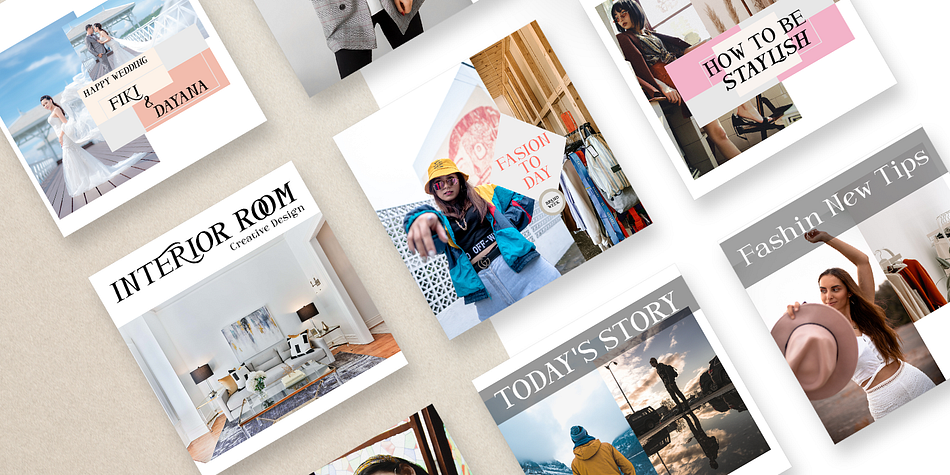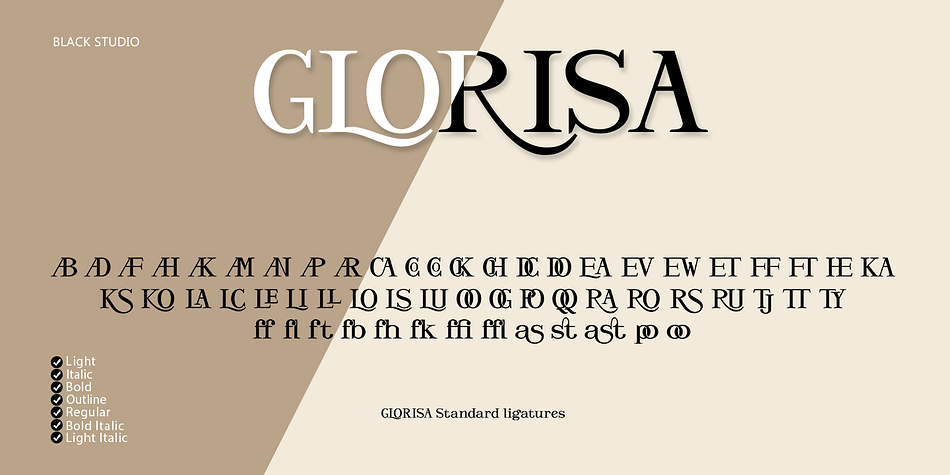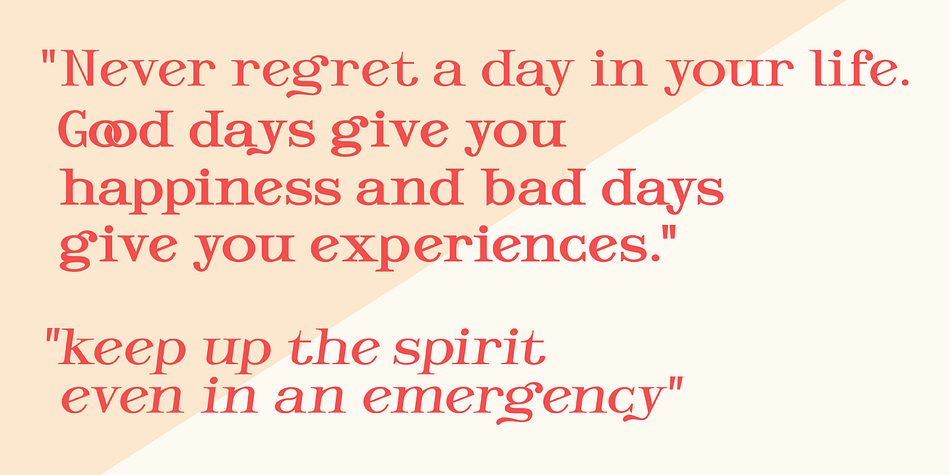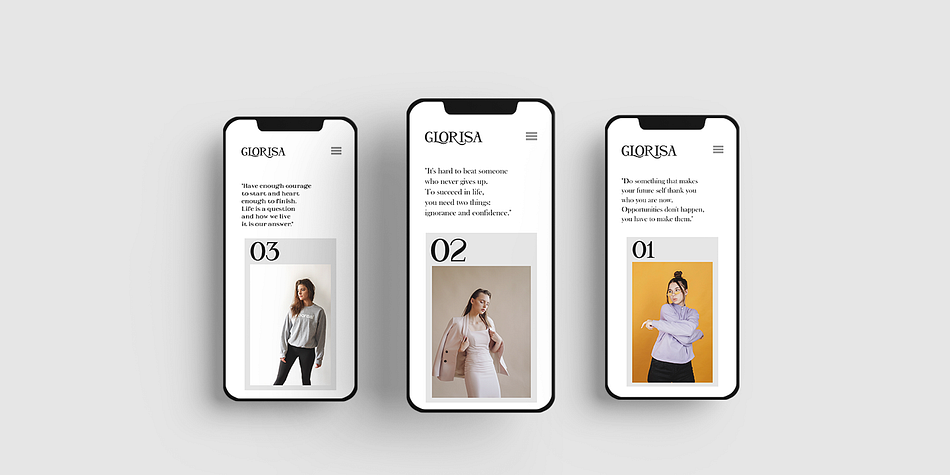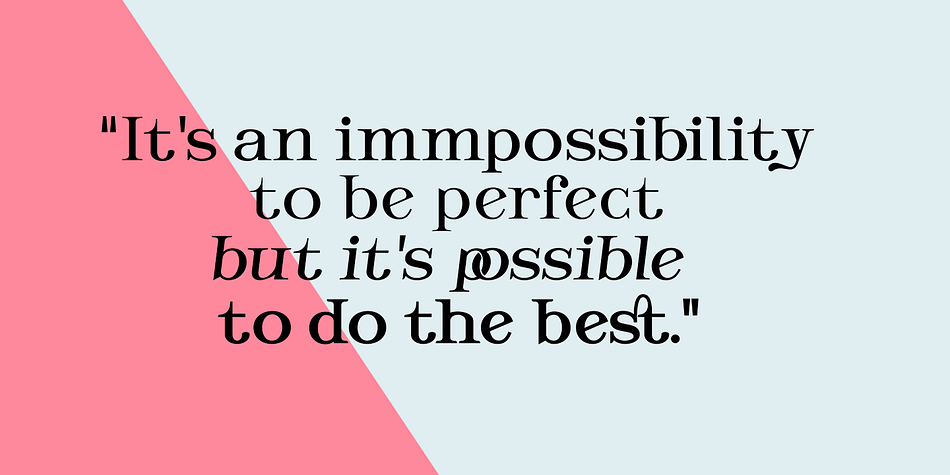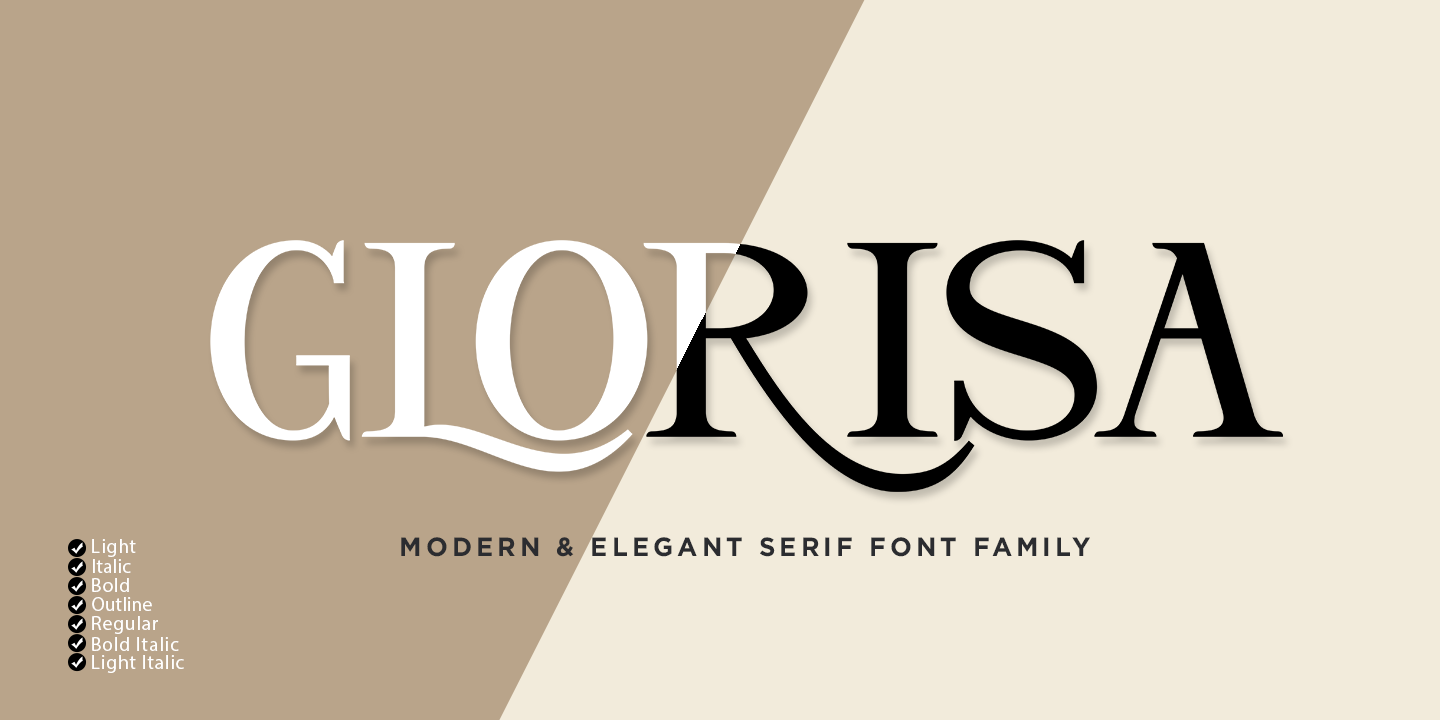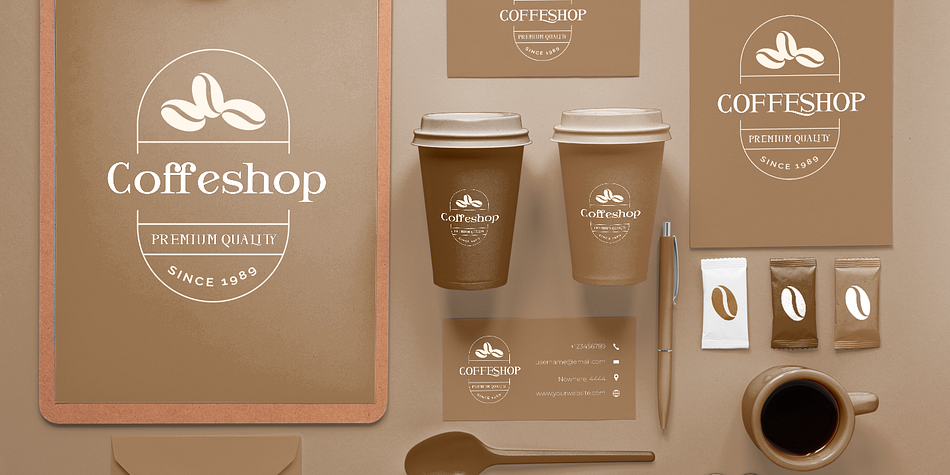
Glorisa
Glorisa is a serif font family. This typeface has seven styles and was published by Black Studio.
Glorisa is a new elegant serif font that will add a touch of luxury and style to your projects. This is a very versatile font that works well in large and small sizes. Perfect for editorial projects, magazine headers, Logo designs, Clothing Branding, product packaging, and showcasing masculine and feminine qualities.
Glorisa is equipped with uppercase, lowercase, numbers and full punctuation + Multi language support and PUA-encode.
- 3 Font weight
- Uppercase & lowercase letters
- Alternative & Ligature Styles
- Numbers & Punctuation
- Characters with accents
- Supports Multiple Languages